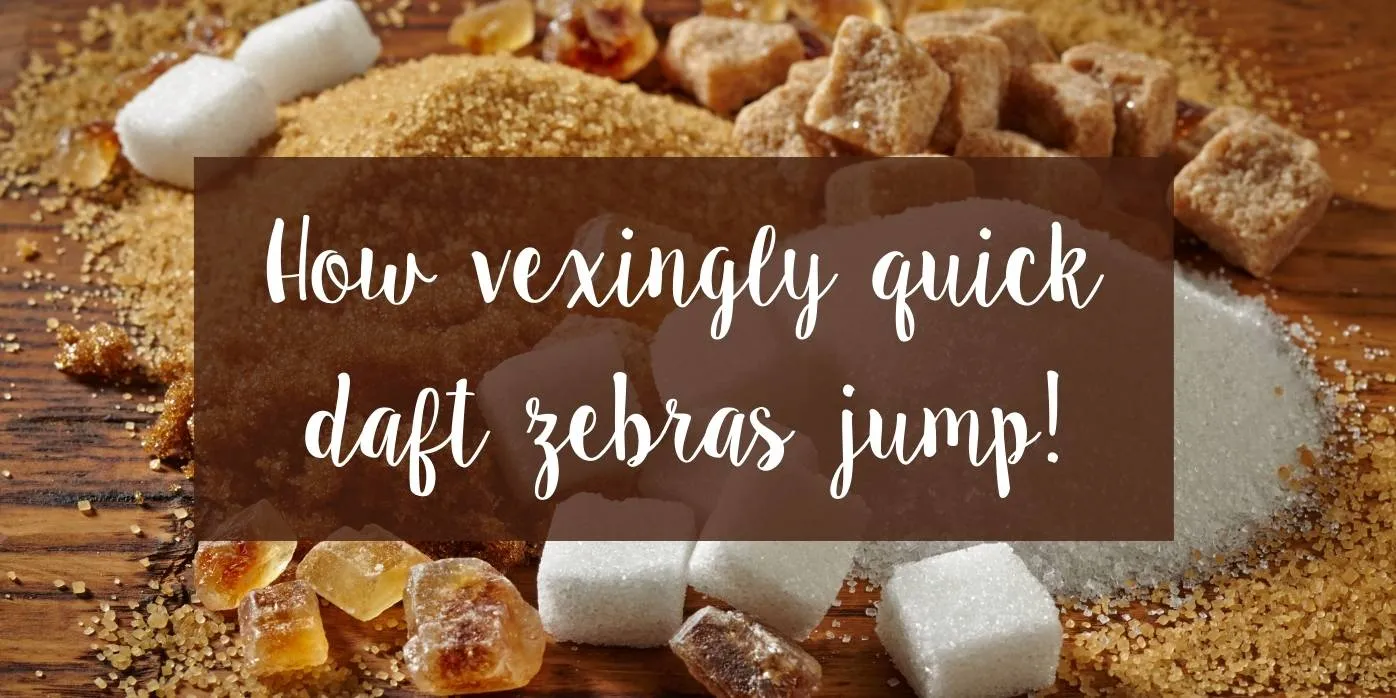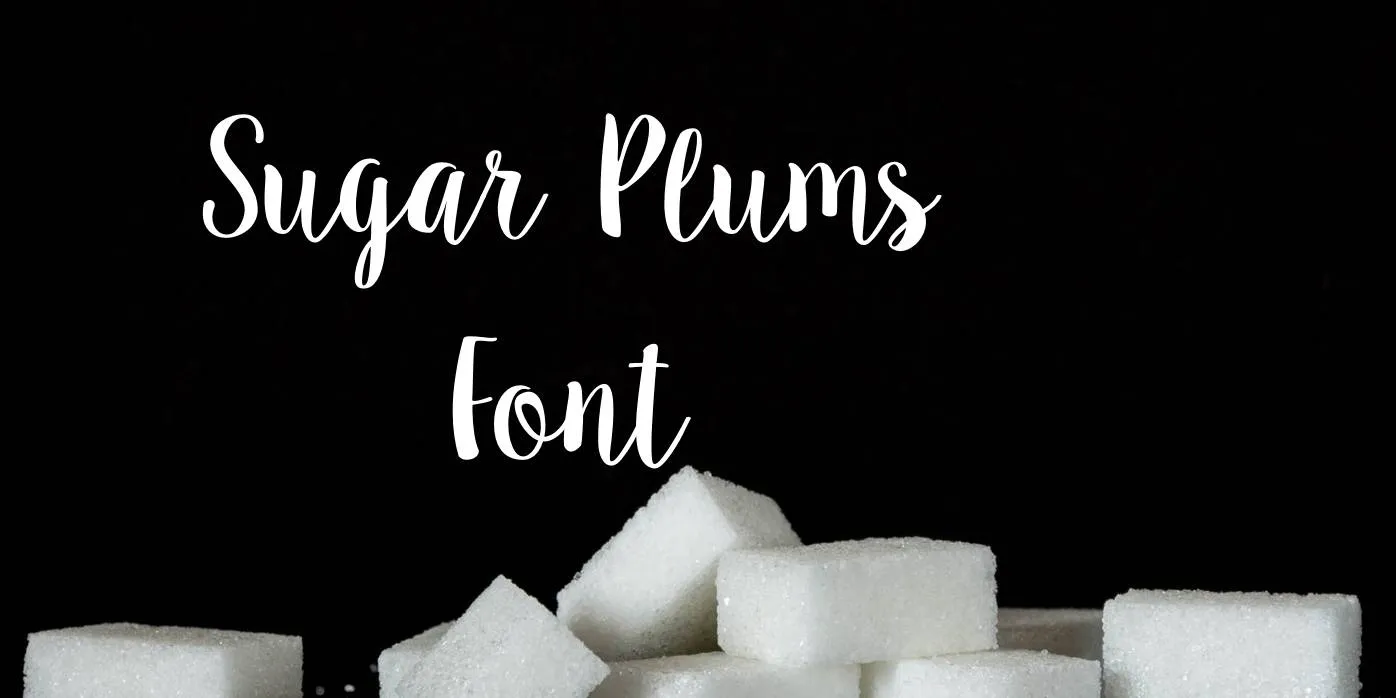
Sugar Plums Font
Sugar Plums font was developed by Emily Spadoni. This typeface belongs to the Script typeface.  This typeface has a very sweet and girly feel to it. It is great for projects that need a handwritten or whimsical look. This cute font is perfect for headlines, and other projects that need a touch of sweetness!